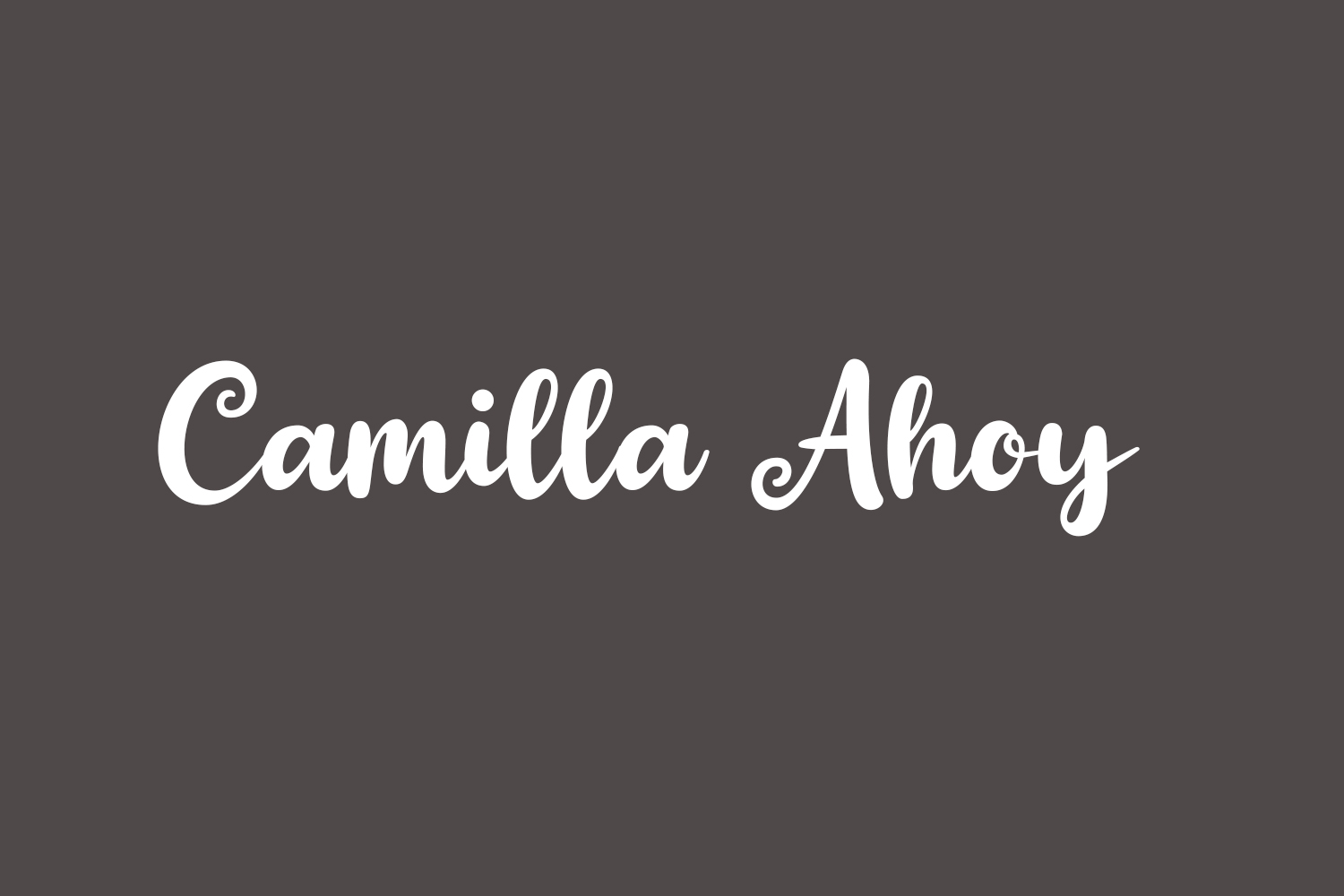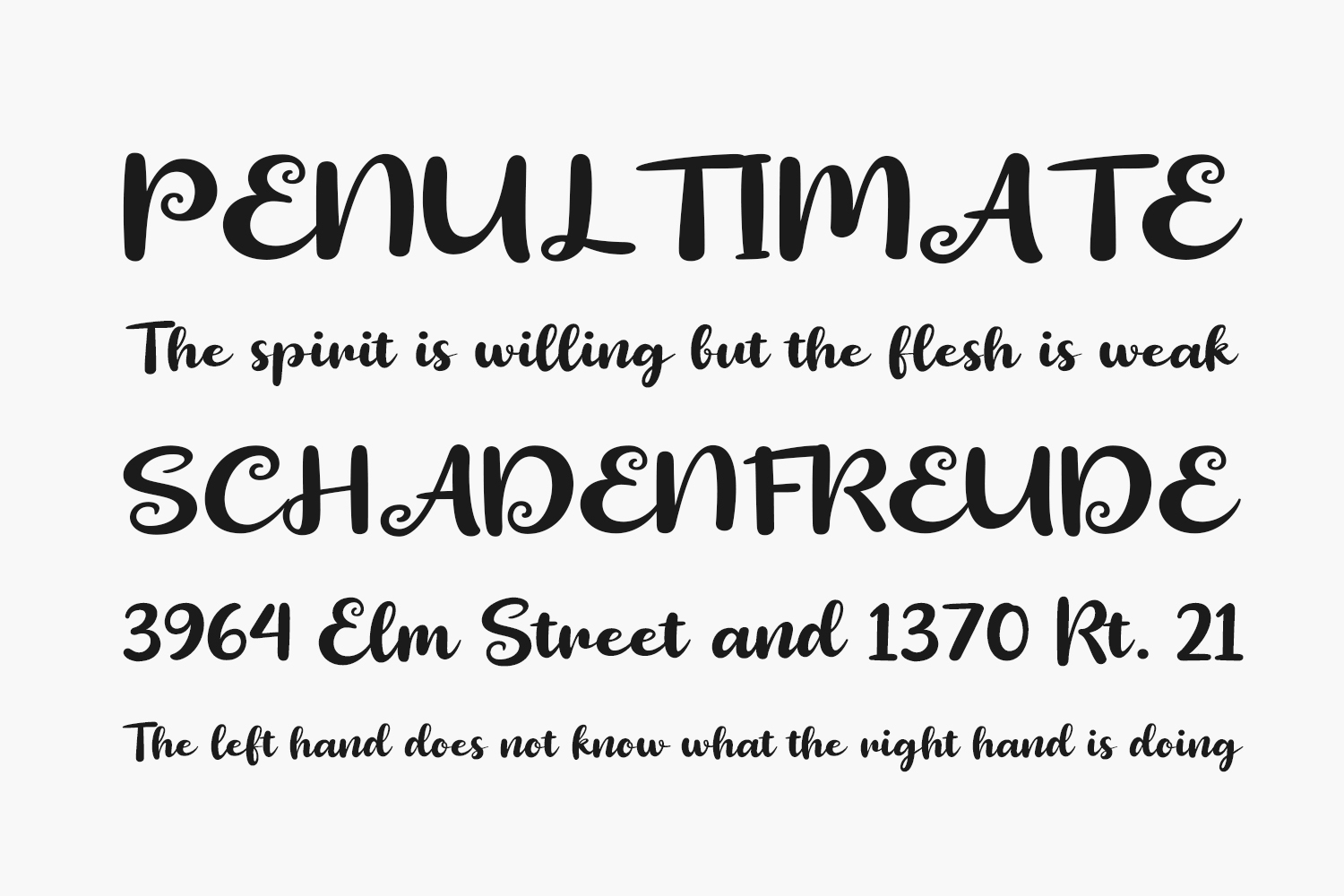
Camilla Ahoy Free Font is an equally fun and cool handwritten font with a unique style. Download the font for free if you need it for personal use or purchase the full version for commercial use.